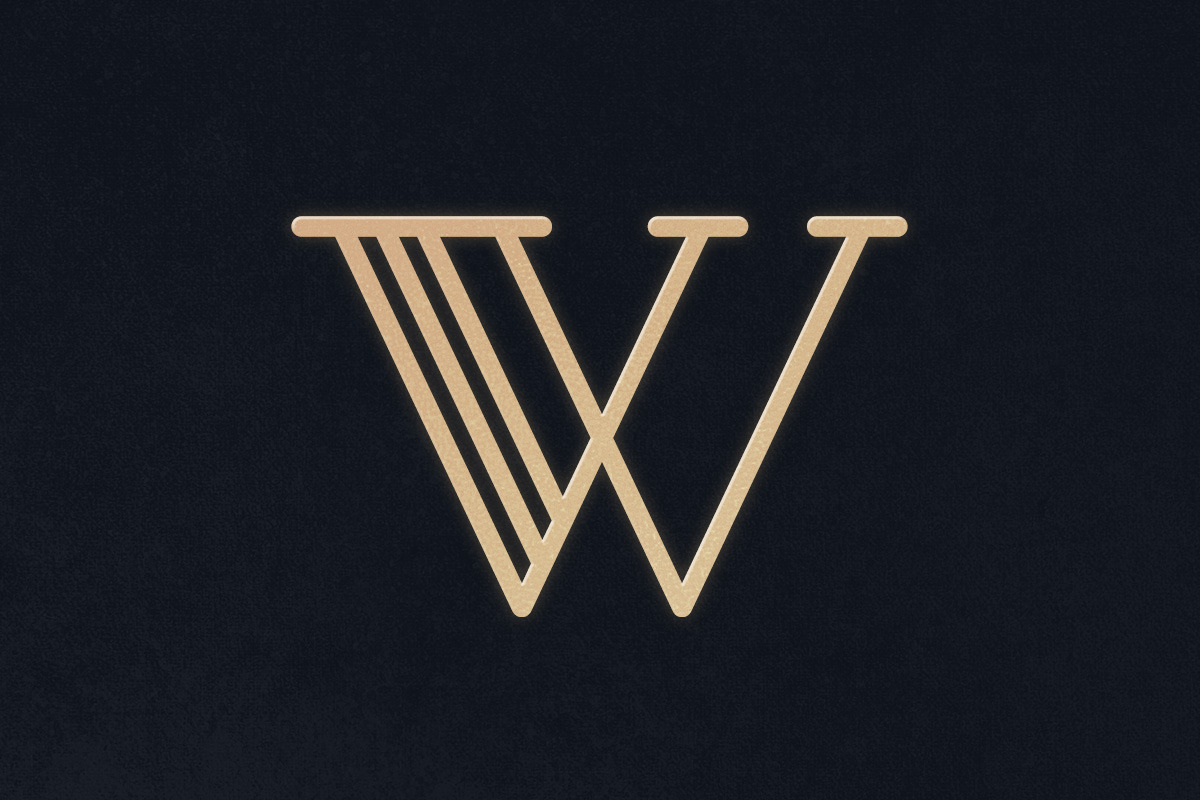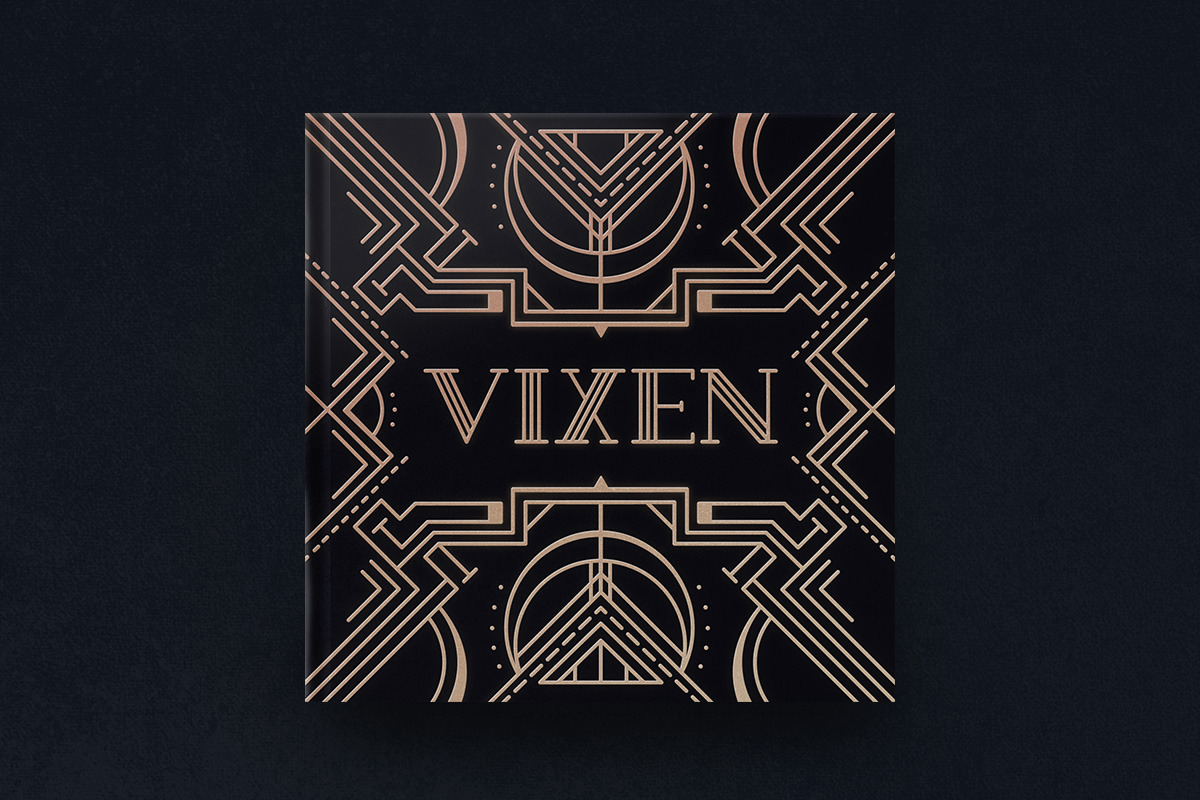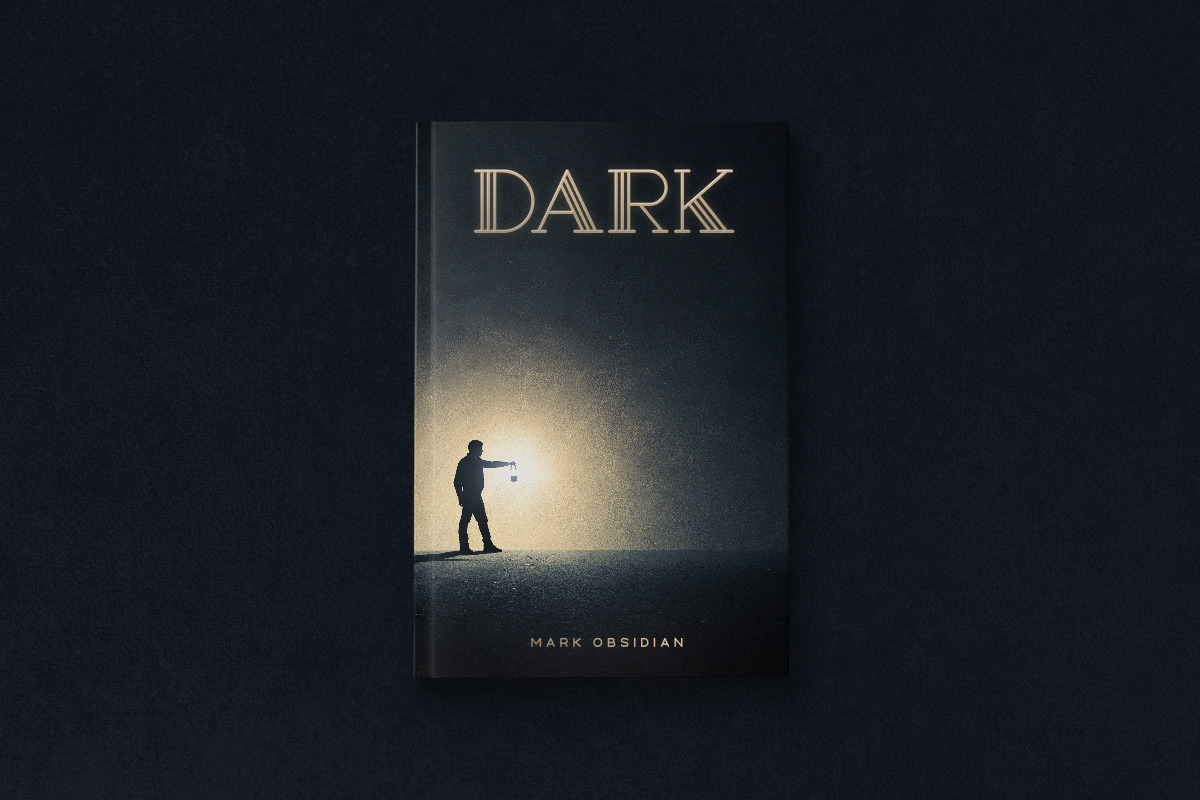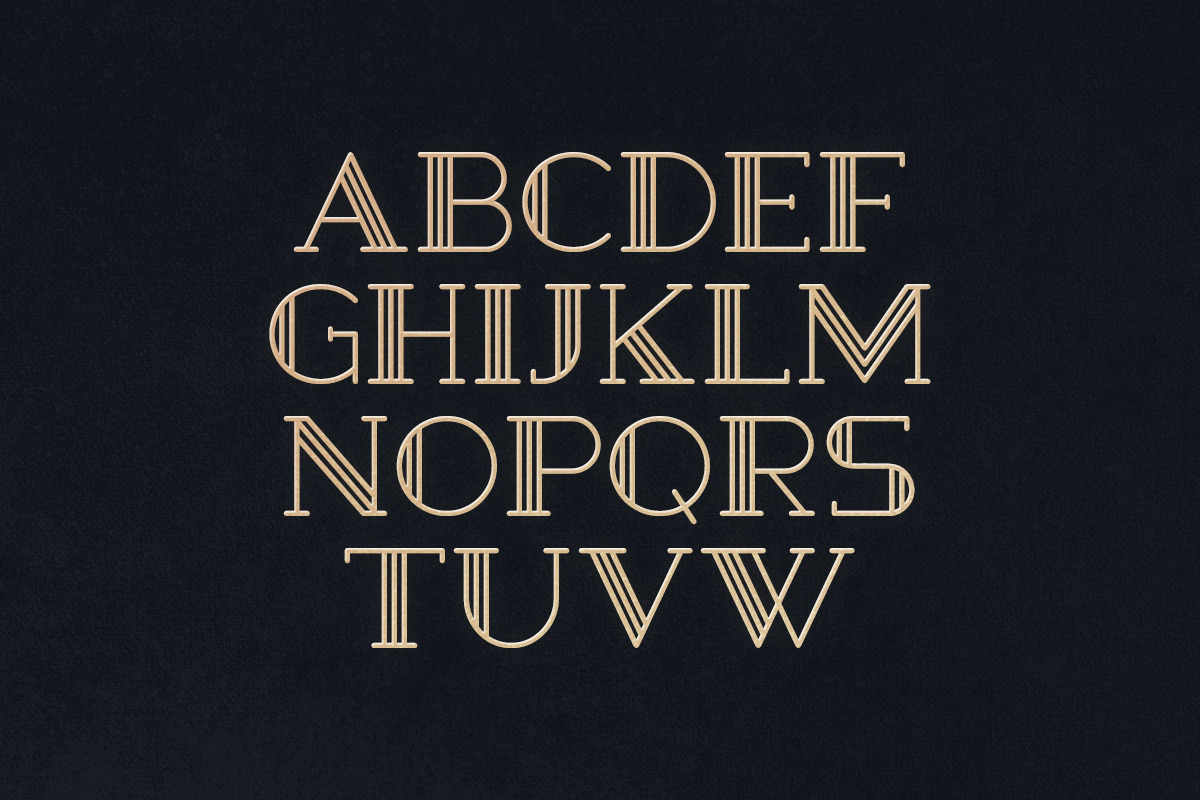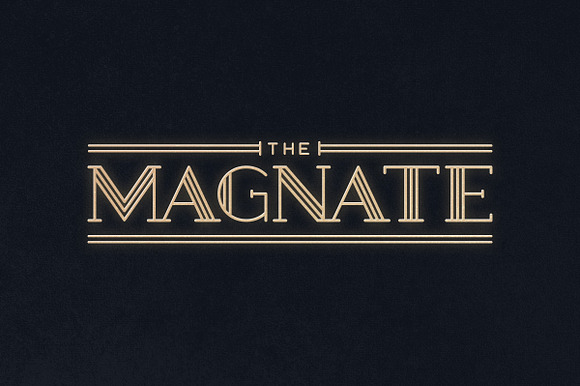
Magnate Typeface
Magnate is an art deco themed display font with uppercase multilingual letters, numbers and punctuation.
- Magnate is an art deco themed display font with uppercase multilingual letters, numbers and punctuation.
Why Magnate Typeface is worth a look
Magnate Typeface by Tugcu Design Co. fits naturally into Branding, posters, packaging, typography.